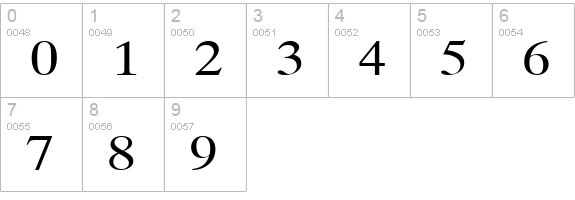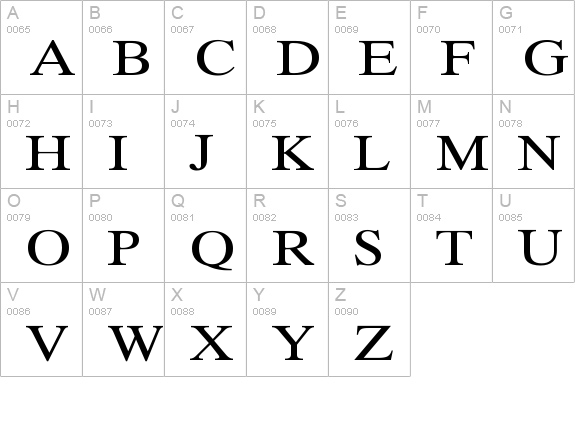
Duke Extended Normal is the standard, neutral, extended-width variant in the Duke typeface family \xE2\x80\x94 well suited to general body text, paragraphs, and standard typographic work.
Duke Extended Normal is a versatile and modern font that offers a perfect balance between sophistication and readability. Its clean lines and extended proportions make it ideal for a wide range of design projects, from branding to editorial design. With a contemporary feel and a timeless appeal, Duke Extended Normal adds a touch of elegance to any text it graces. The best part? Duke Extended Normal is available for free download at FontsMarket.com. So whether you're a graphic designer looking to elevate your projects or a business owner seeking a fresh new look for your branding, this font is a must-have in your toolkit. Get your hands on Duke Extended Normal today and experience the power of premium quality design at no cost.